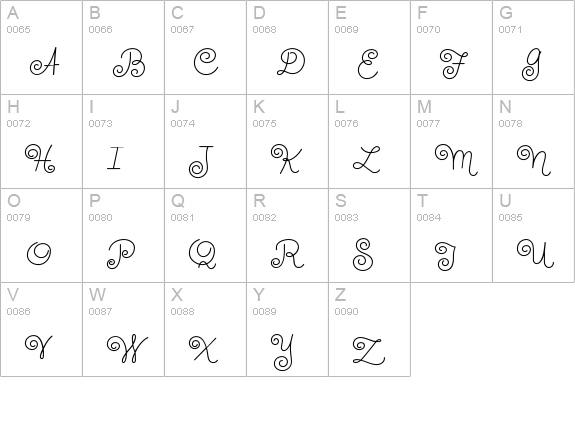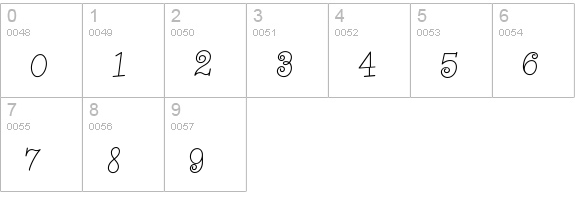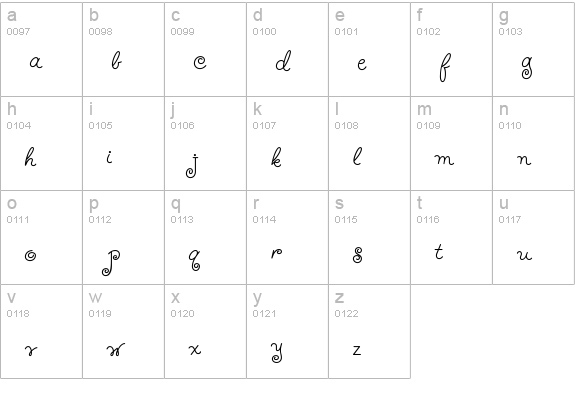
Whirled Peas NF Font Details
Whirled Peas NF is a delightful and quirky font that brings a sense of whimsy and playfulness to any design project. Its unique letterforms, with their slightly irregular shapes and charming curves, add a touch of hand-drawn character to your creations. This font is perfect for those looking to add a touch of personality and warmth to their designs. Whether you're working on a children's book, a greeting card, or a logo for a fun-loving brand, Whirled Peas NF will instantly capture attention and bring a smile to your audience's face. But what truly sets Whirled Peas NF apart is its availability. This font is not only beautifully designed and versatile, but it is also free! That's right, you can download this amazing font at absolutely no cost from FontsMarket.com. Whether you're a professional designer or an aspiring creative, Whirled Peas NF gives you the opportunity to enhance your projects without breaking the bank. With Whirled Peas NF, you can let your imagination run wild and create eye-catching designs that are sure to stand out. Its easy readability and distinctive style make it suitable for a wide range of applications. From headlines and titles to body text and captions, this font adapts effortlessly to your design needs. So why wait? Download Whirled Peas NF today from FontsMarket.com and unlock the creative possibilities that this font offers. Let your designs come to life with this charming and freely available font that will bring joy and personality to your work.